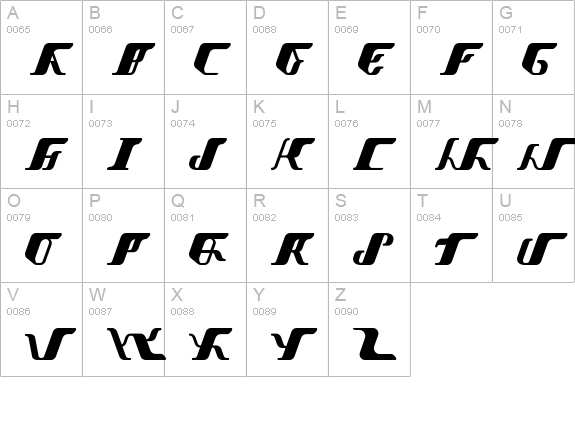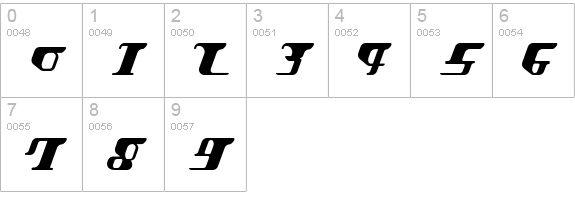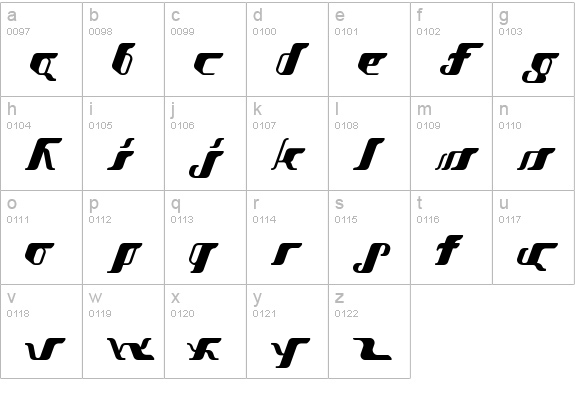
Vitesse SemiBold Font Details
Vitesse SemiBold is a sub-bold, structured variant in the Vitesse typeface family \xE2\x80\x94 well suited to sub-headlines and emphasised passages.
Introducing Vitesse SemiBold, a font that embodies the perfect balance between elegance and strength. With its sleek and modern design, this typeface exudes confidence and sophistication. Each letter is meticulously crafted, ensuring a harmonious flow that captivates the reader's attention. Vitesse SemiBold stands out with its bold and commanding presence, making it the ideal choice for headlines, titles, and branding projects. Its versatility allows it to be used effectively across various mediums, from print to digital. This font's clean lines and sharp edges create a sense of precision, while its slightly condensed form adds a touch of compactness. Whether used for editorial layouts, packaging designs, or website interfaces, Vitesse SemiBold effortlessly communicates professionalism and reliability. But what sets Vitesse SemiBold apart from other fonts is that it is not only visually stunning but also freely available. That's right, you can now easily download this exceptional font without any cost at FontsMarket.com. This means that designers, creatives, and typographers alike can enjoy the benefits of this remarkable typeface without breaking the bank. Embrace the power of Vitesse SemiBold and elevate your designs to new heights. Its striking presence and unique charm will leave a lasting impression on any project. Download it today from FontsMarket.com and experience the freedom of creating beautiful designs with this exceptional font.